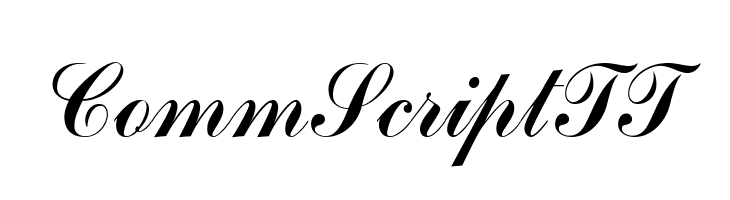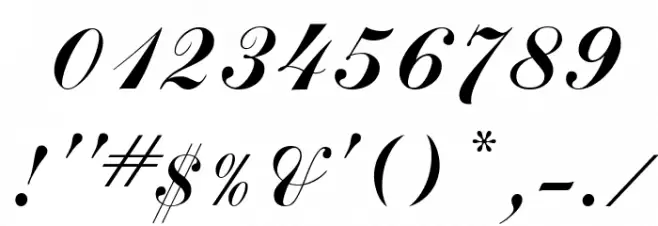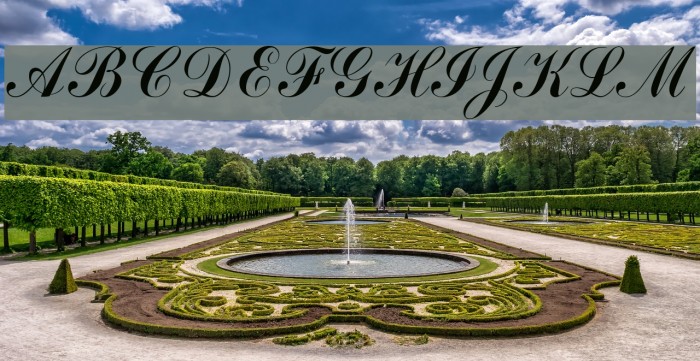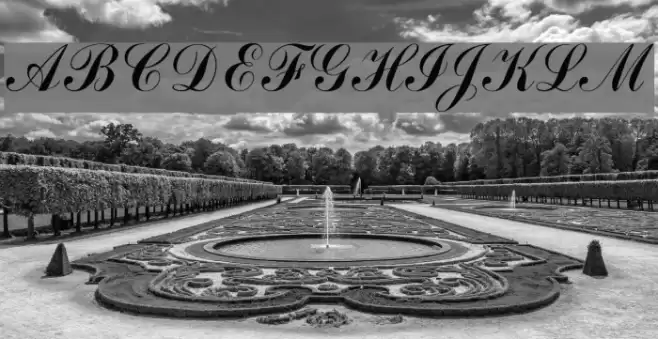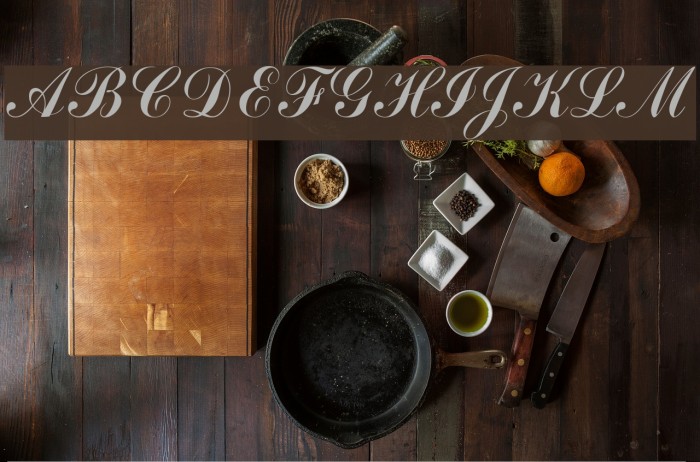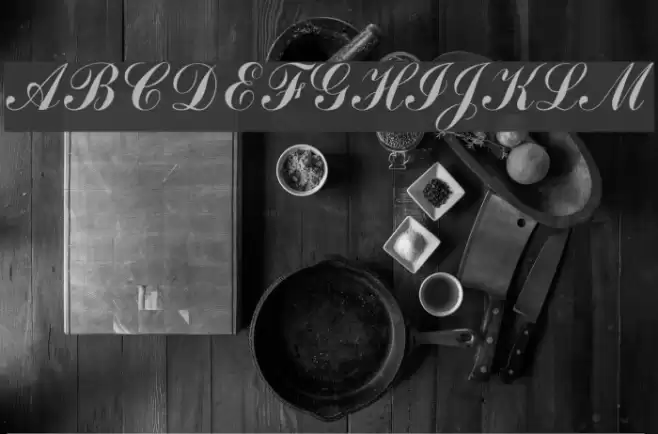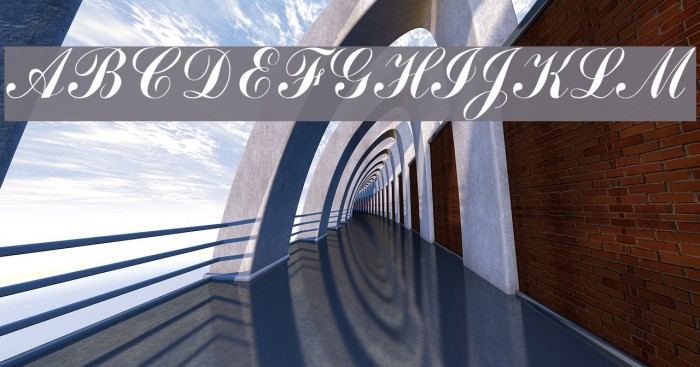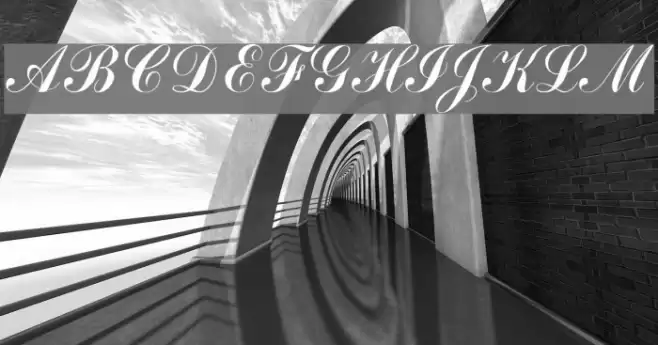
CommScriptTT Font
CommScriptTT Description
This elegant script font features flowing, cursive characters with a classic and sophisticated appearance. The uppercase letters are ornate, with sweeping curves and flourishes that give a sense of movement and grace. The lowercase letters maintain a consistent slant, enhancing the fluidity of the text. The numbers are styled to match the letters, with similar curves and a refined look. Special characters are designed to complement the overall aesthetic, making this font suitable for formal and decorative purposes. The font's high contrast between thick and thin strokes adds to its dramatic and stylish appeal.
| Overall Style | Classic |
| Use Case | Logos, Invitations, Decorative text |
| Proposed Projects | Ideal for wedding invitations, elegant branding, formal event programs, and decorative signage. |